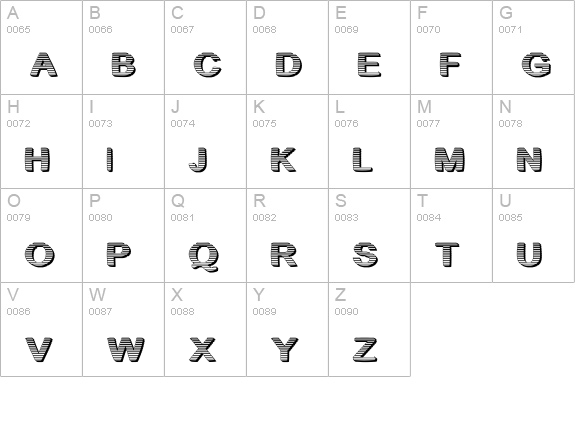
A Cut Above The Rest Font Details
Introducing A Cut Above The Rest font, a stunning typeface that stands out from the crowd. With its bold and distinctive design, this font truly lives up to its name, elevating any project to new heights. A Cut Above The Rest font exudes confidence and sophistication, making it the perfect choice for logo designs, headlines, posters, and more. What sets A Cut Above The Rest font apart is not only its exceptional aesthetics but also its accessibility. This remarkable font is available for free download at FontsMarket.com, allowing designers and enthusiasts alike to unleash their creativity without any limitations. With just a few clicks, you can add this font to your collection and start creating impressive designs that leave a lasting impact. Every character of A Cut Above The Rest font has been meticulously crafted with attention to detail, resulting in a harmonious and balanced typeface. The sharp edges and clean lines give it a contemporary and edgy feel, perfect for projects that require a modern touch. Whether you're designing a sleek and minimalist website or a bold and eye-catching advertisement, this font will effortlessly enhance your visuals. Versatility is another key aspect of A Cut Above The Rest font. Its legibility ensures that it can be used in various sizes and contexts, from small captions to large banners. The wide range of weights and styles available allows for endless possibilities, giving you the freedom to experiment and find the perfect combination for your design. A Cut Above The Rest font is not just a font; it's a statement. It embodies excellence, originality, and a commitment to pushing the boundaries of design. So why settle for ordinary when you can have something extraordinary? Download A Cut Above The Rest font for free at FontsMarket.com and take your creative endeavors to a whole new level.